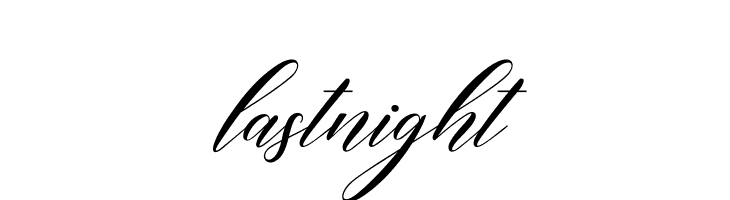
An elegant script font with flowing, cursive letters and high contrast strokes.
An elegant script font with fluid, cursive strokes and sophisticated flourishes.
A dynamic and flowing script font with elegant cursive letterforms.
An elegant script font with flowing, interconnected characters and classic calligraphic style.